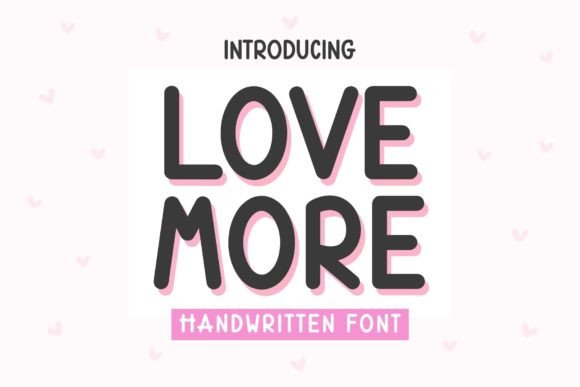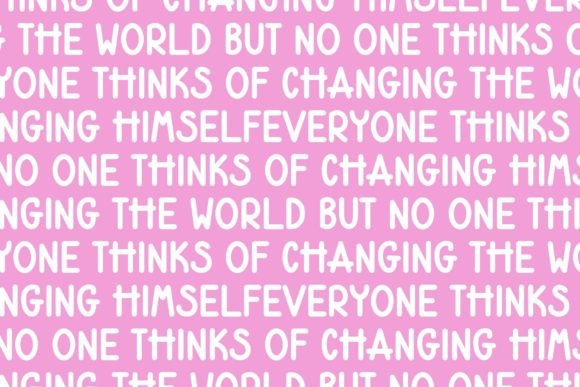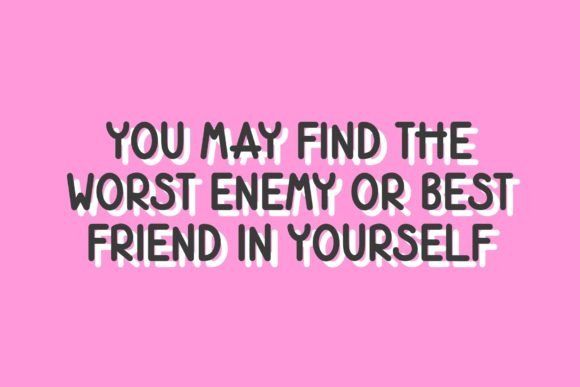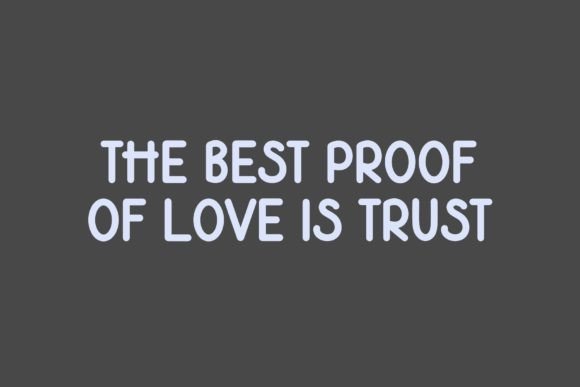
Love More Font: A Cute Handwritten Font for Cricut & DIY Projects
About the Love More Font
The Love More Font is here to transform your projects with its distinctive character and style. Love More is a sweet and friendly handwritten font. Its natural and unique
style makes it incredibly fitting to a large pool of designs. The only limit is
your imagination!
Love More’s friendly, handwritten style excels in projects requiring a warm, approachable feel. Ideal applications include wedding invitations, greeting cards, branding for artisanal food products, or short, impactful headlines. It would be less suitable for body text or lengthy paragraphs due to its informal nature and potential for reduced readability.
Pairing Love More with a clean sans-serif like Open Sans for body copy creates a balanced design; a more playful geometric sans-serif like Montserrat could enhance its friendly energy. For a touch of elegance, consider a delicate serif like Lora.
The overall personality is undeniably sweet and approachable, making it perfect for brands aiming to communicate warmth and genuine connection with their audience. Avoid using it where a more serious or formal tone is required.
Love More Font Usage Examples
Love More Font Example